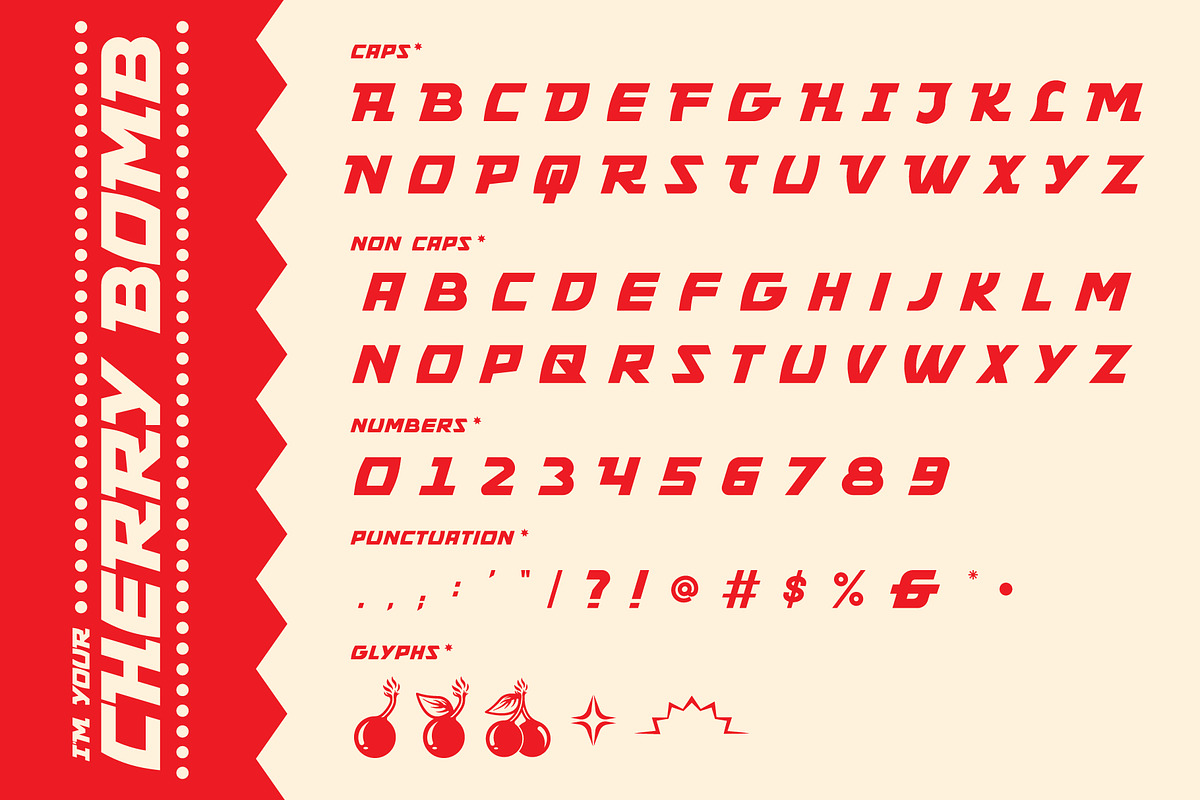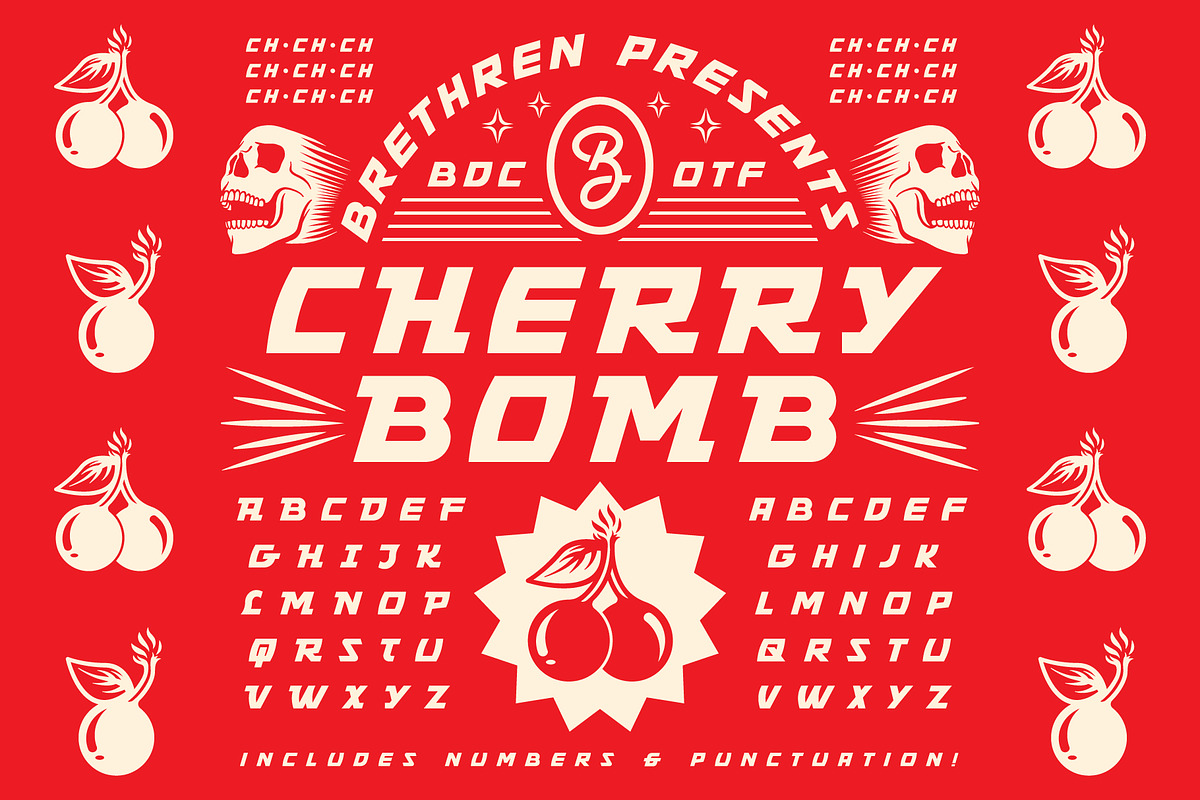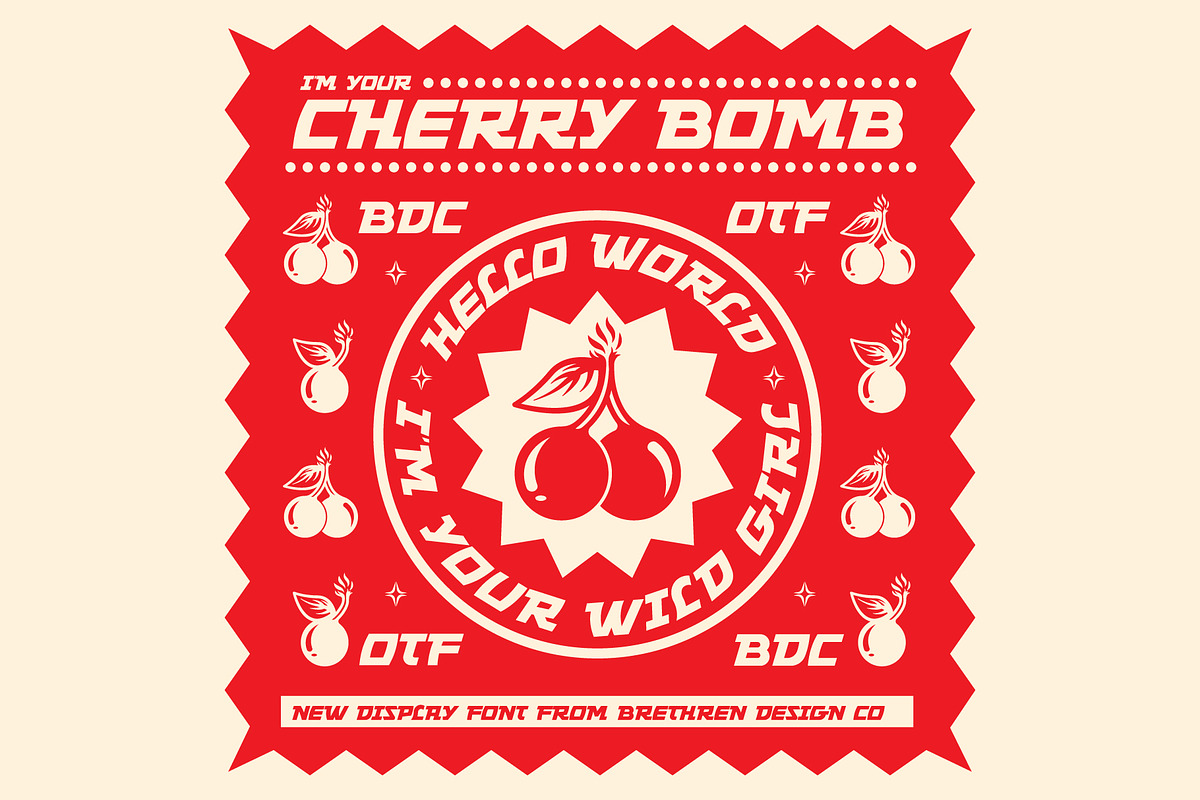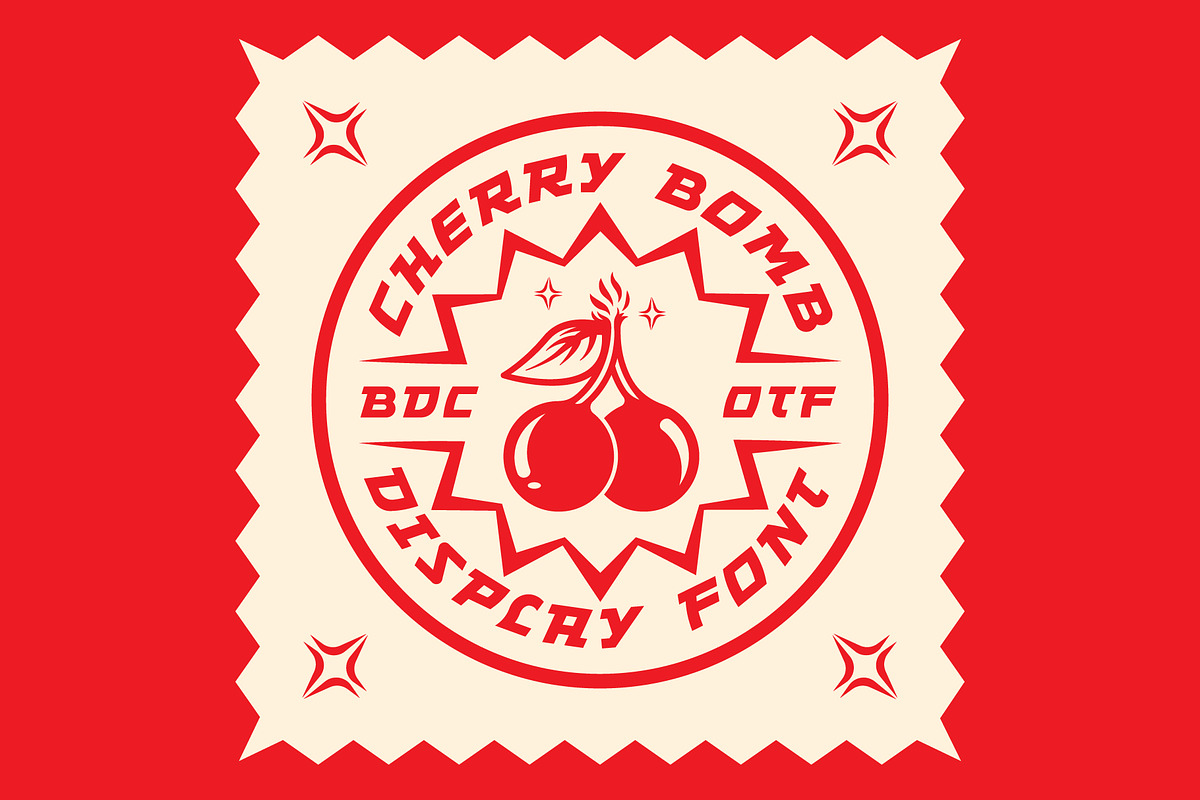
Cherry Bomb Display Font
Hello Daddy, Hello Mom, This font is CH-CH-CH-CH-CH CHERRY BOMB! This font is packed with retro power that packs the perfect punch for any vintage, classic, delicious design aesthetic you crave. Comes complete with numbers, punctuation and a few neat little glyphs.